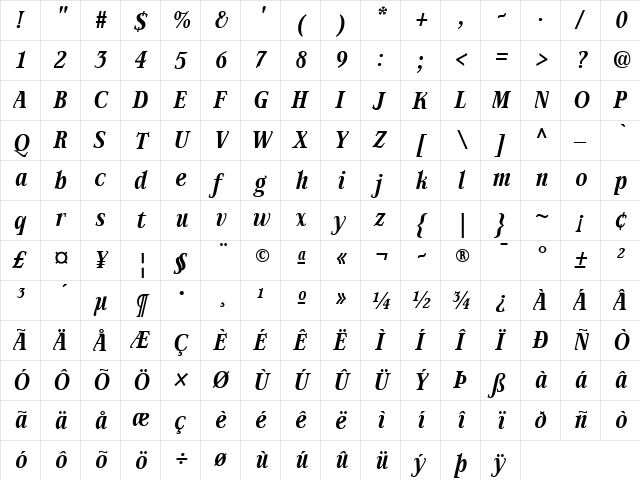
AIAlign Italic
Design Context for AIAlign Typeface
AIAlign takes a measured approach to typography — its balanced proportions and neutral character make it a reliable workhorse for both digital and print work. Its italic angle brings a sense of urgency and motion to the letterforms.
Pro Tip: Use AIAlign for emphasis, pull quotes, and subheadings where its slanted energy can add rhythm to the layout.